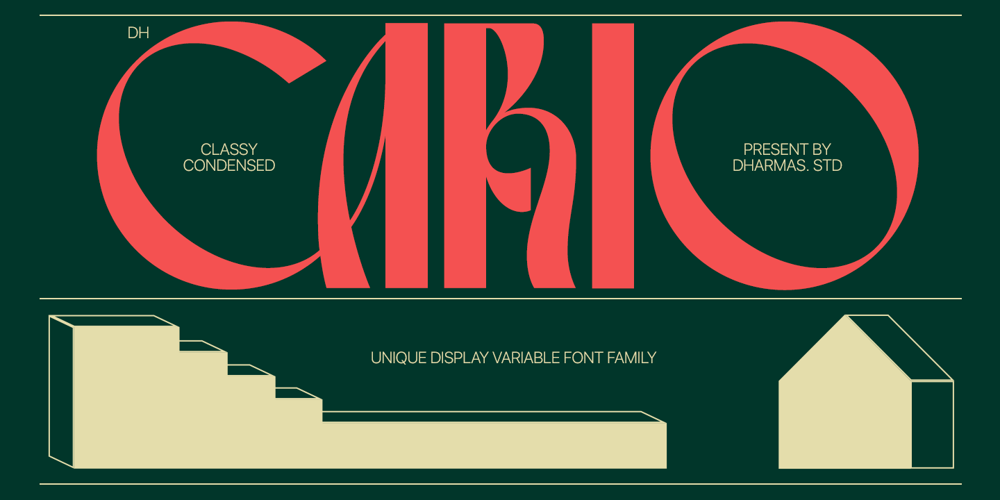
Dh Cario
Dh Cario font
Dh Cario Font Family was designed by Ahmad Jamaludin and published by Ahmad Jamaludin. Dh Cario contains 5 styles and family package options. Introducing Dh Cario, a display variable typeface creatively designed by Dharmas Studio. Featuring 5 weight variations—Thin, Light, Regular, Semi Bold, and Bold—and 85 unique ligatures and alternates, Dh Cario is the perfect choice for creating elegant and impactful designs. Ideal for headline posters, brand logos, aesthetic moodboards, and beauty branding, Dh Cario adds a modern and captivating touch to any project.This font is highly versatile for various needs, such as Instagram templates, Canva designs, and headline presentations. With its unique ligatures and alternates, Dh Cario allows you to create typography that feels personal and distinctive. It’s the perfect choice for anyone looking to add a professional yet creative flair to their designs.What you get: Dh Cario Main Files 5 Weights: Thin, Light, Regular, Semi Bold, and Bold 85+ Unique Alternates and Ligatures Letters, numbers, symbols, punctuation, special alternates Instructions how to use in any programs Accessible in Adobe Illustrator, Adobe Photoshop, Microsoft Word, and even Canva! PUA Encoded Characters, fully accessible without additional design software Language Support: Danish, English, Estonian, Filipino, Finnish, French, Friulian, Galician, German, Gusii, Indonesian, Irish, Italian, Luxembourgish, Norwegian Bokmål, Norwegian Nynorsk, Nyankole, Oromo, Portuguese, Romansh, Rombo, Spanish, Swedish, Swiss-German, Uzbek (Latin)If you need a custom license or have questions, please visit our website: www.dharmasstudio.com and come and say hello over on Instagram! https://www.instagram.com/dharmas_studioHave a great day!Dharmas Studio